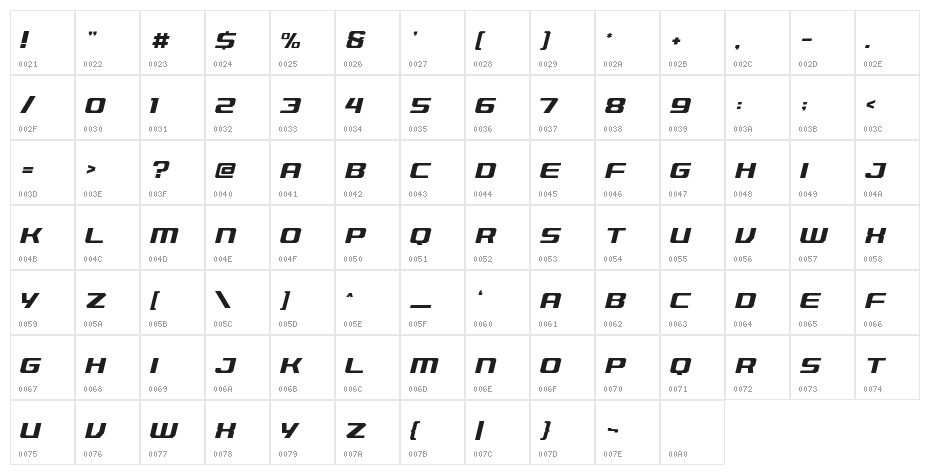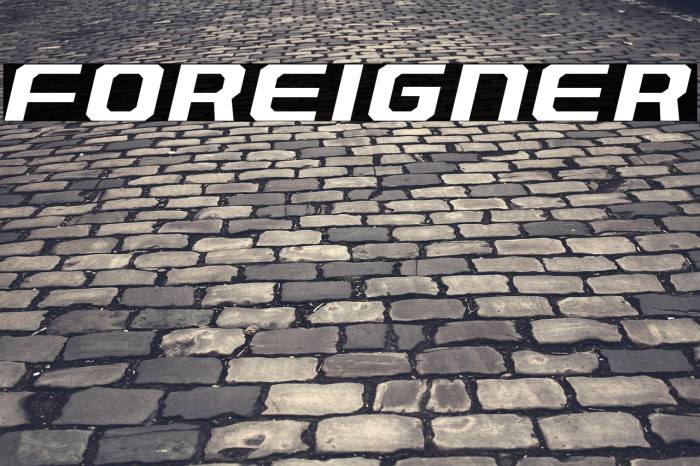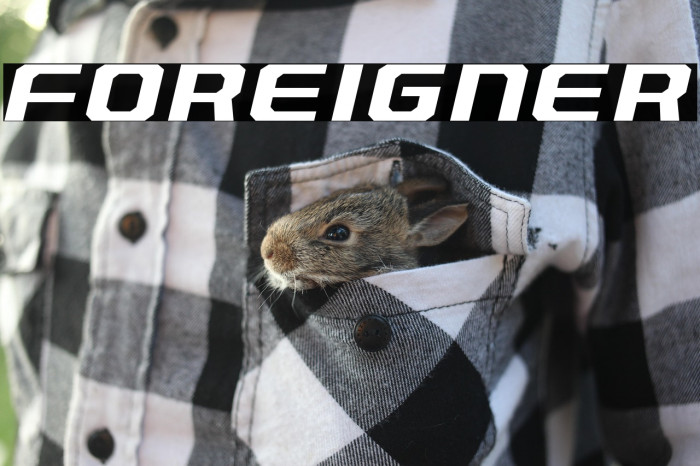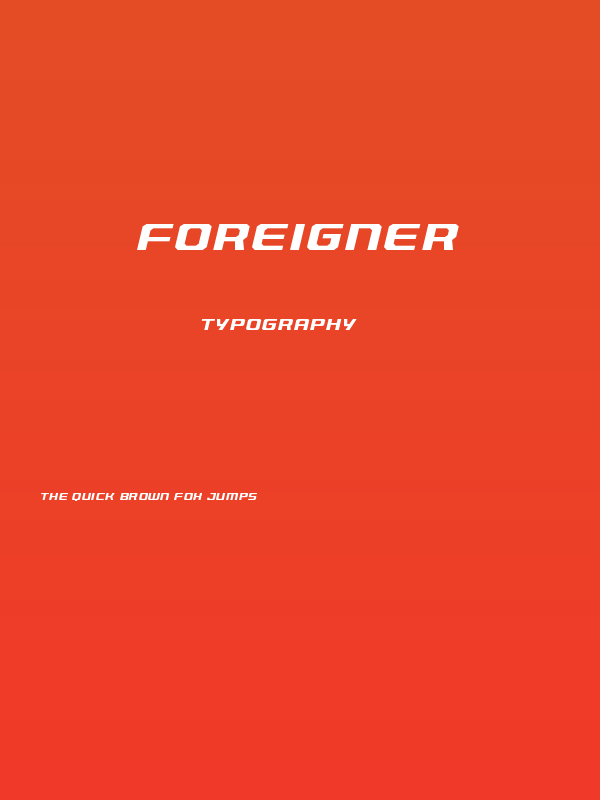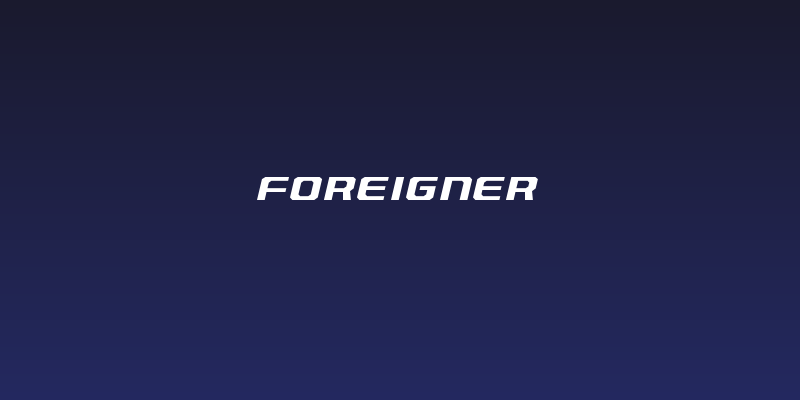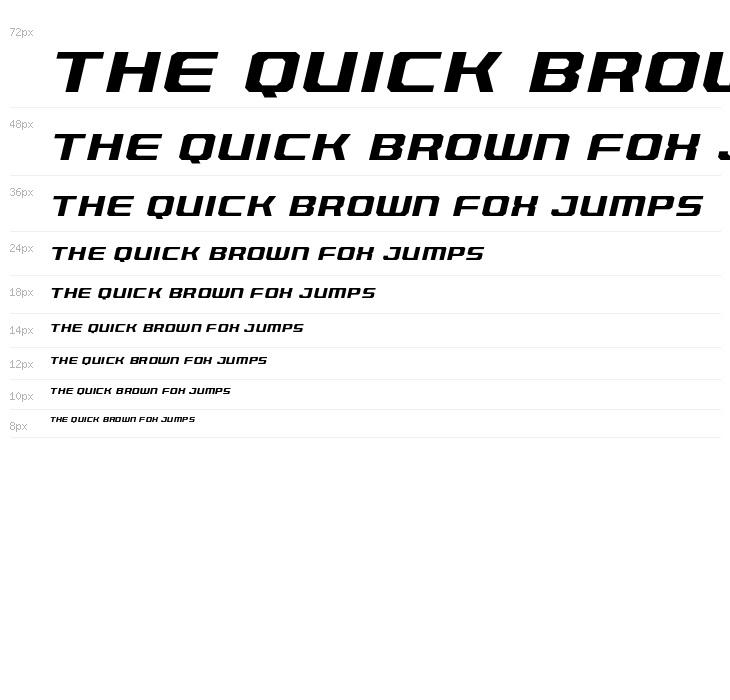
Foreigner Font
Foreigner Description
This font features a bold, angular design with a futuristic and dynamic appearance. The characters are slightly slanted, giving a sense of motion and speed. The strokes are thick and consistent, with sharp edges and geometric shapes. The overall look is modern and tech-inspired, making it suitable for projects that require a strong and impactful visual presence. The uppercase and lowercase letters maintain a uniform style, and the numbers and special characters are designed to match the bold aesthetic.
| Use Case | Logos, Headlines |
| Proposed Projects | Ideal for tech branding, video game titles, sports team logos, and sci-fi themed designs. |